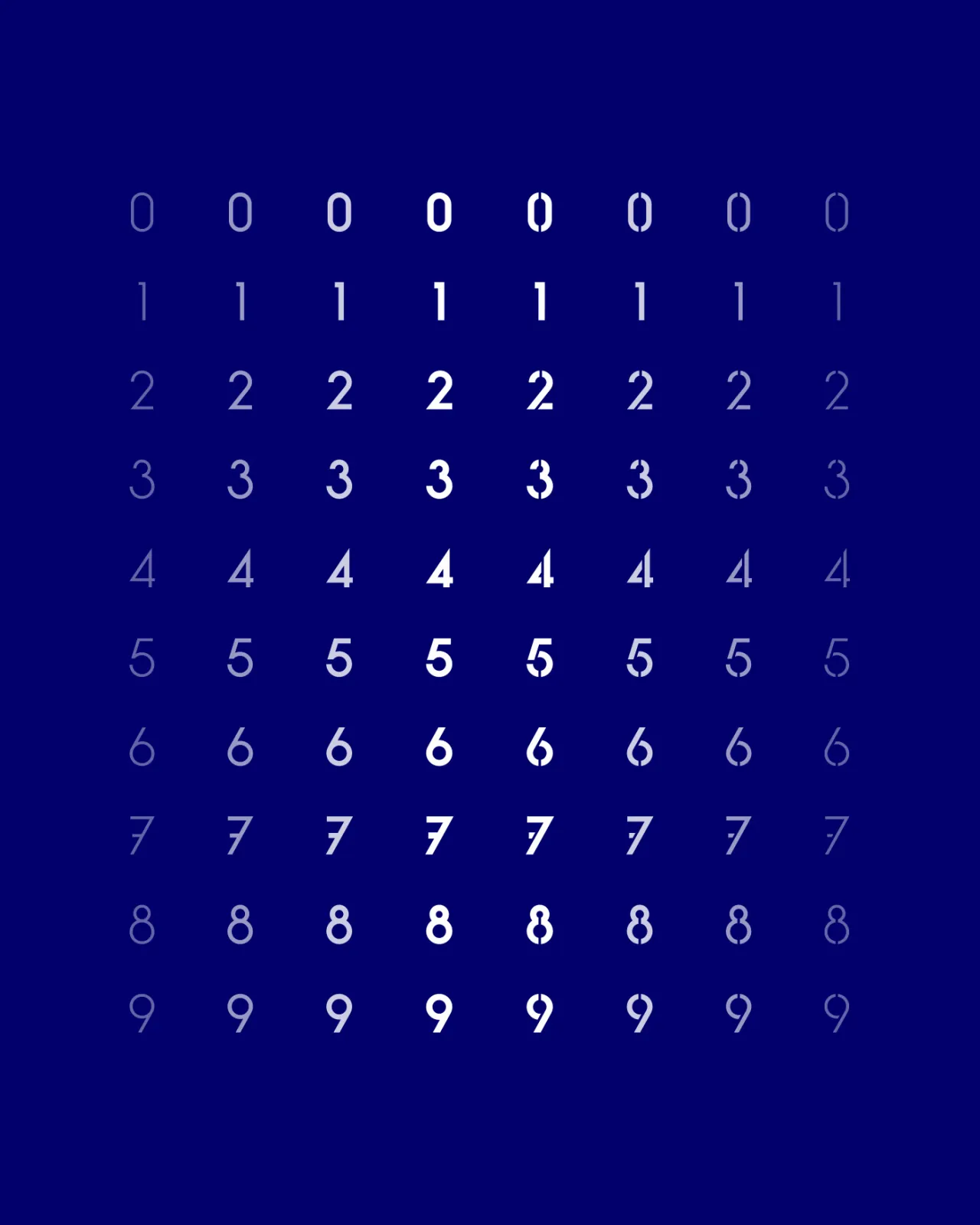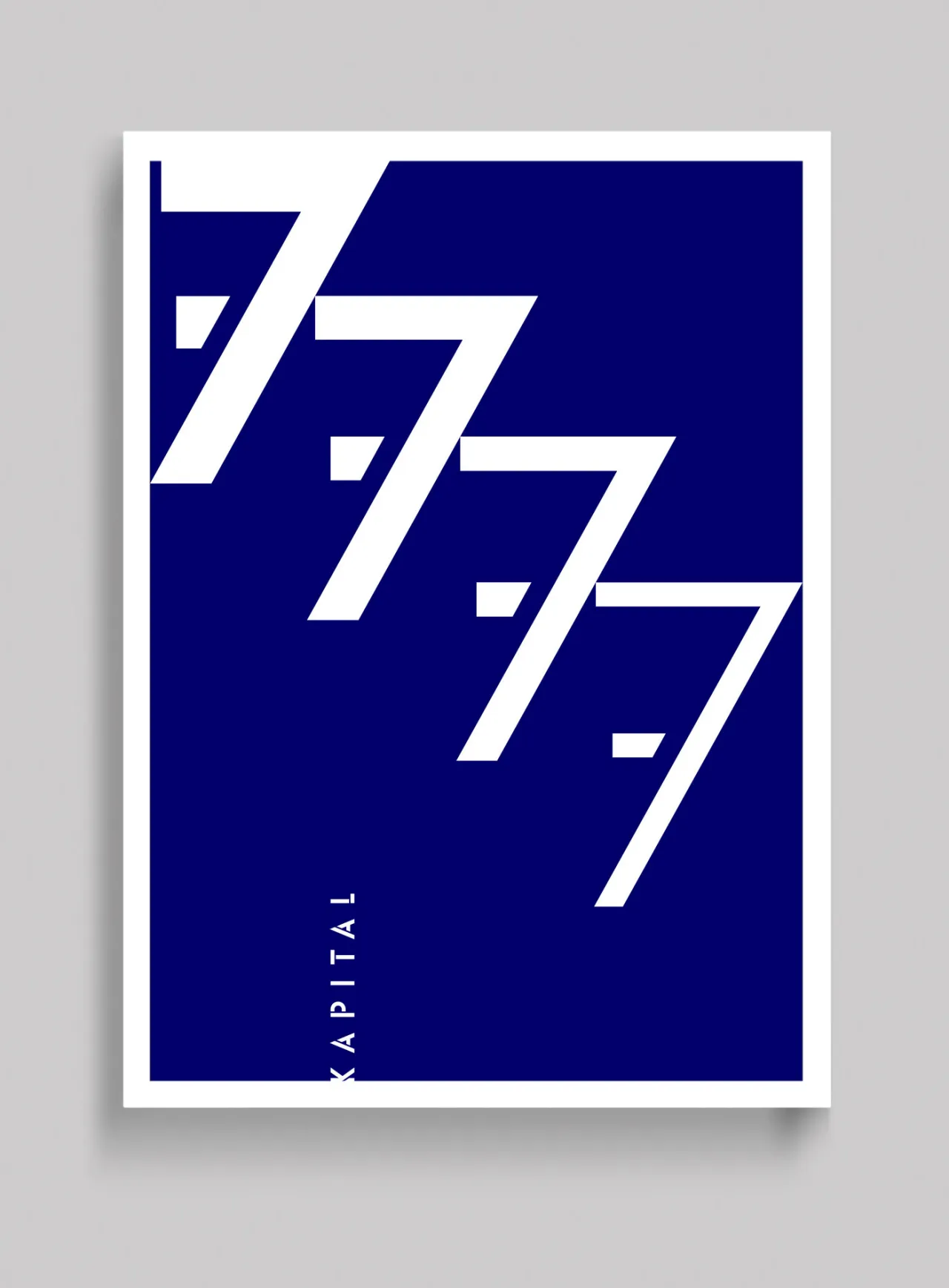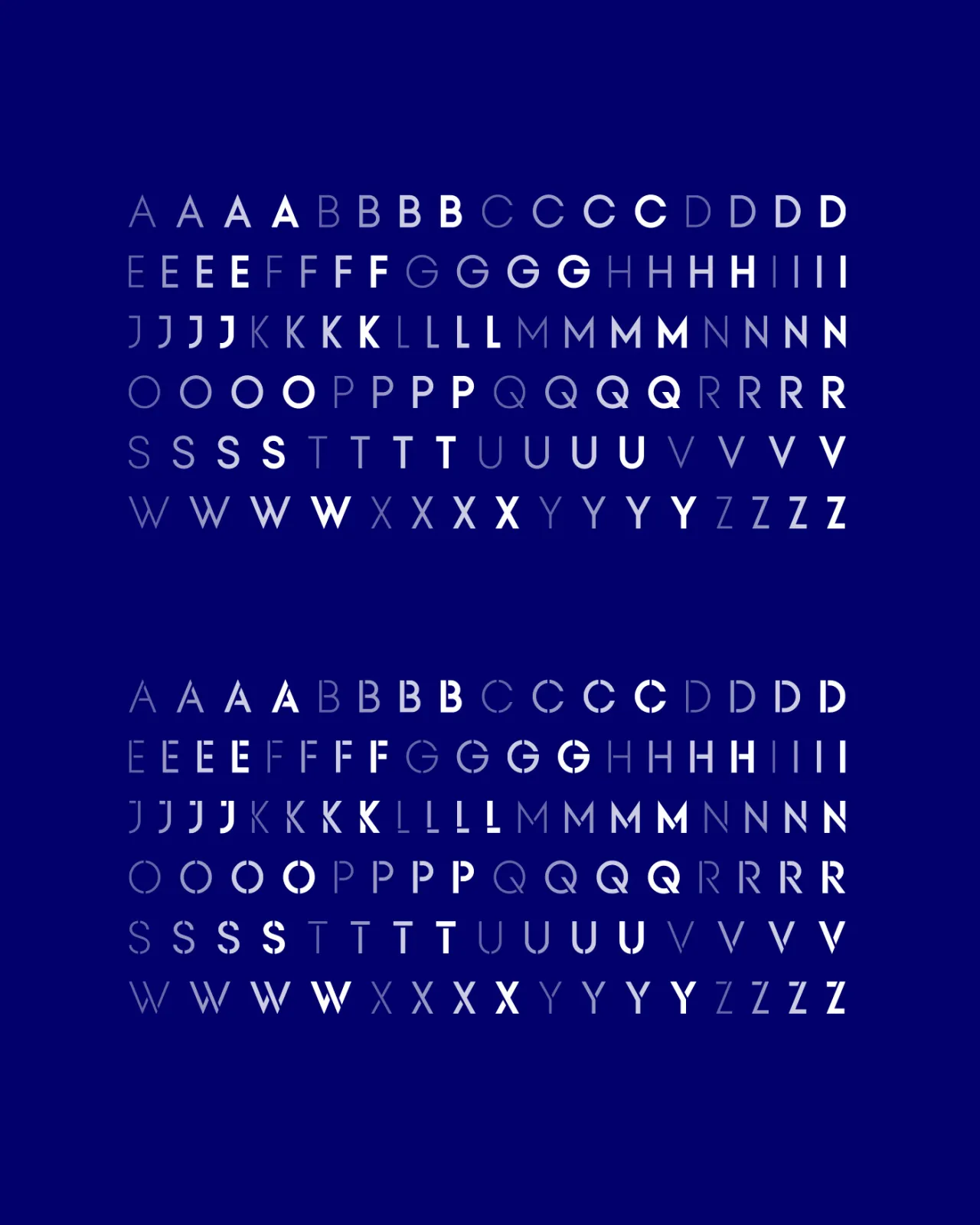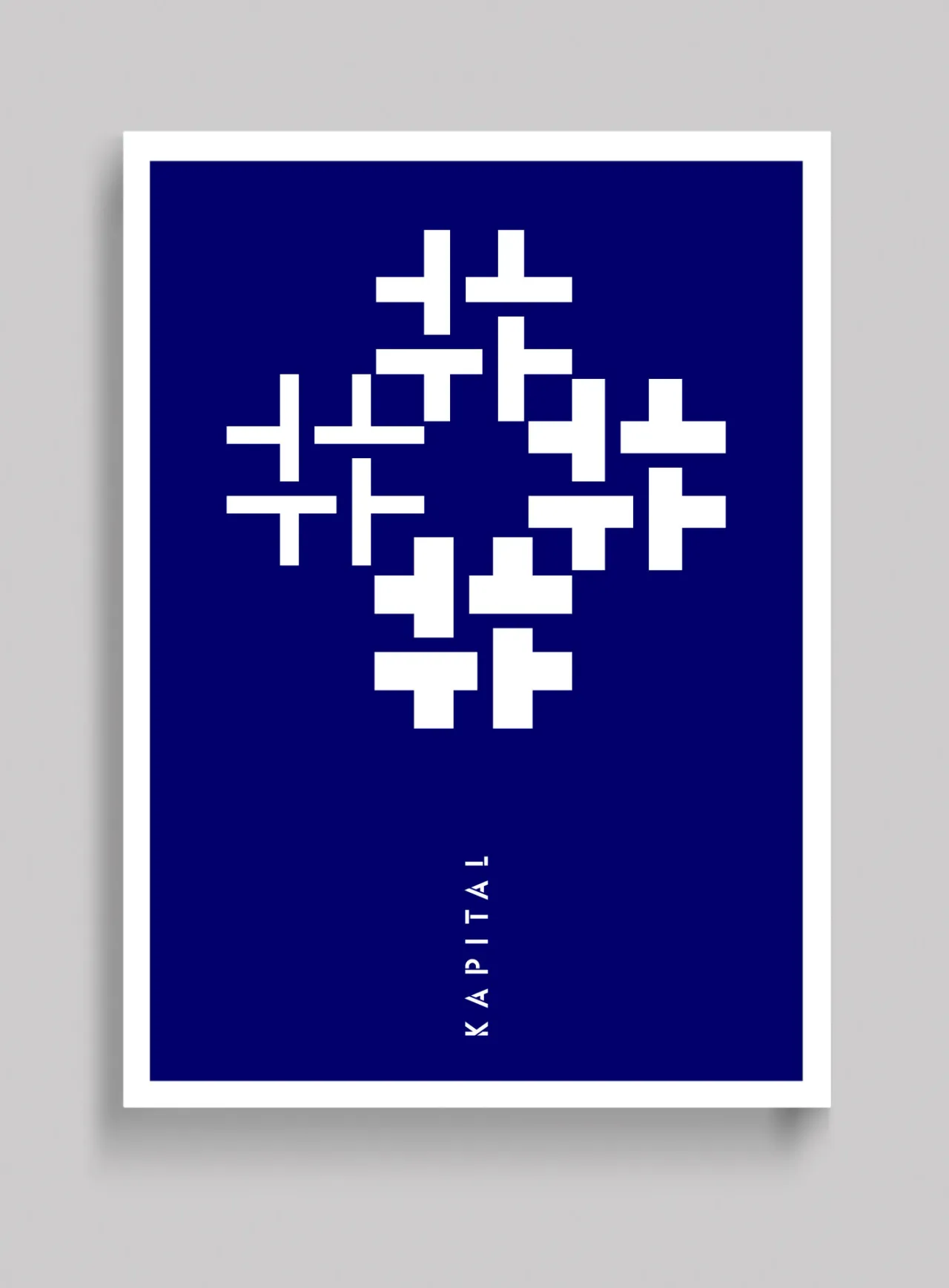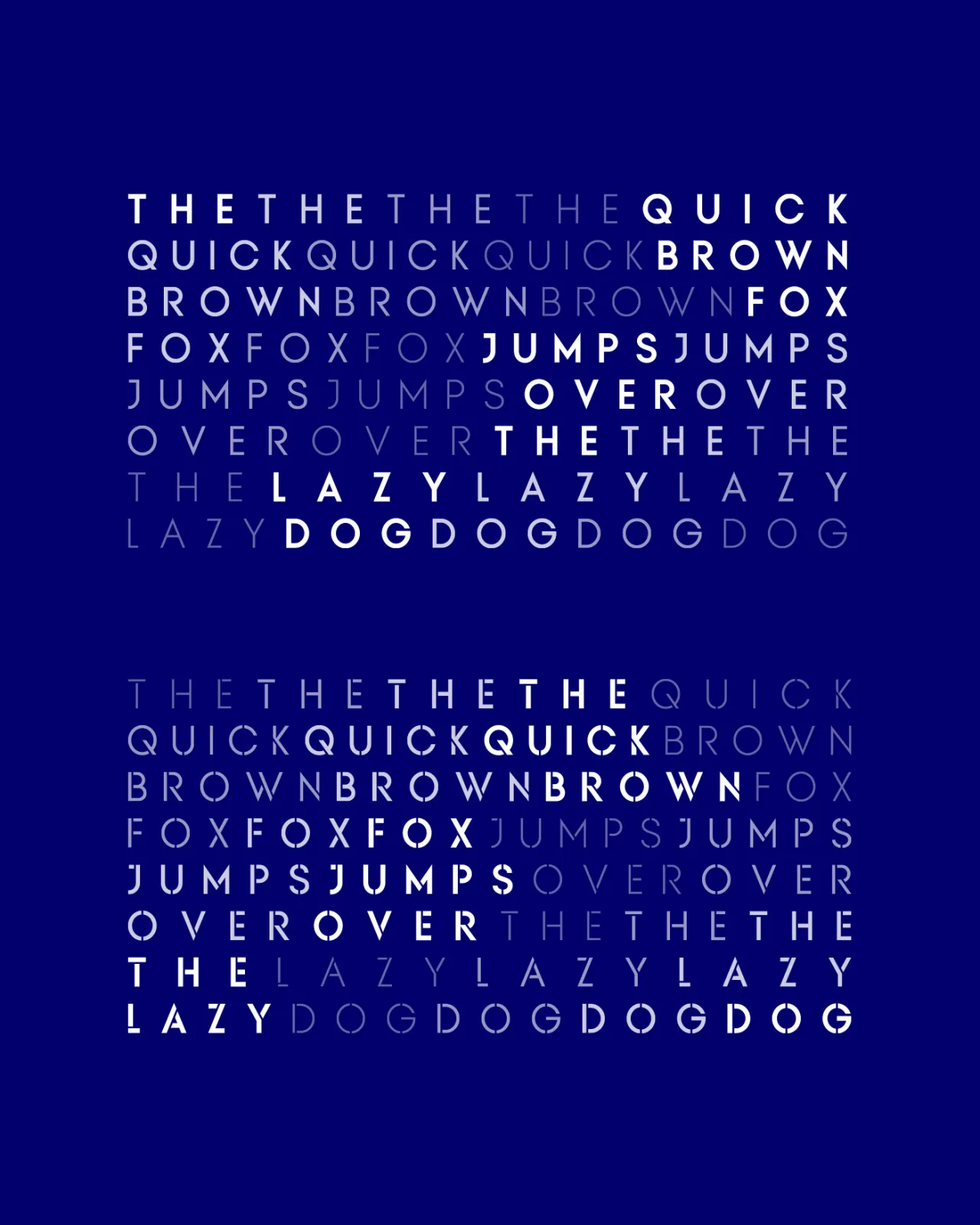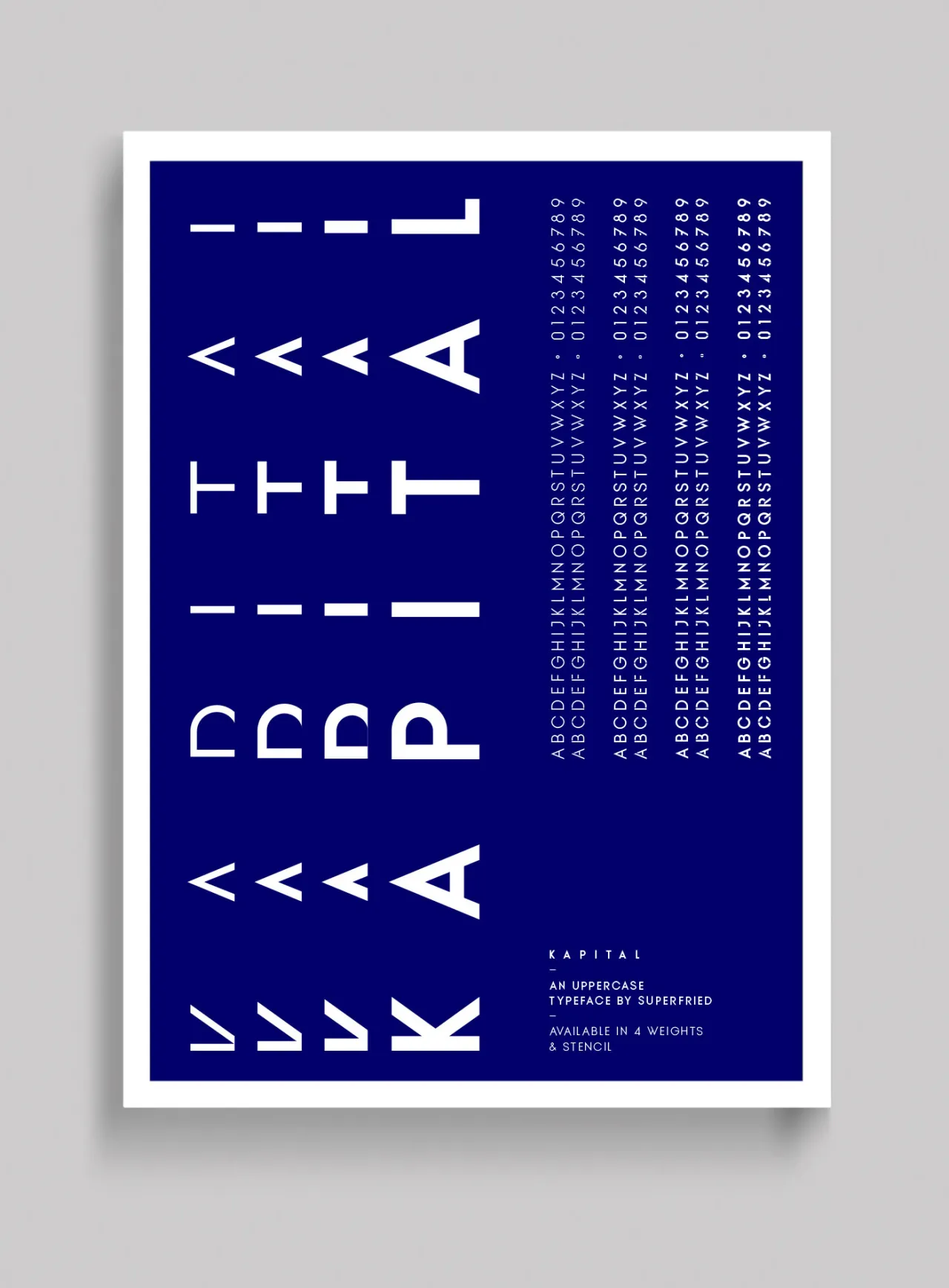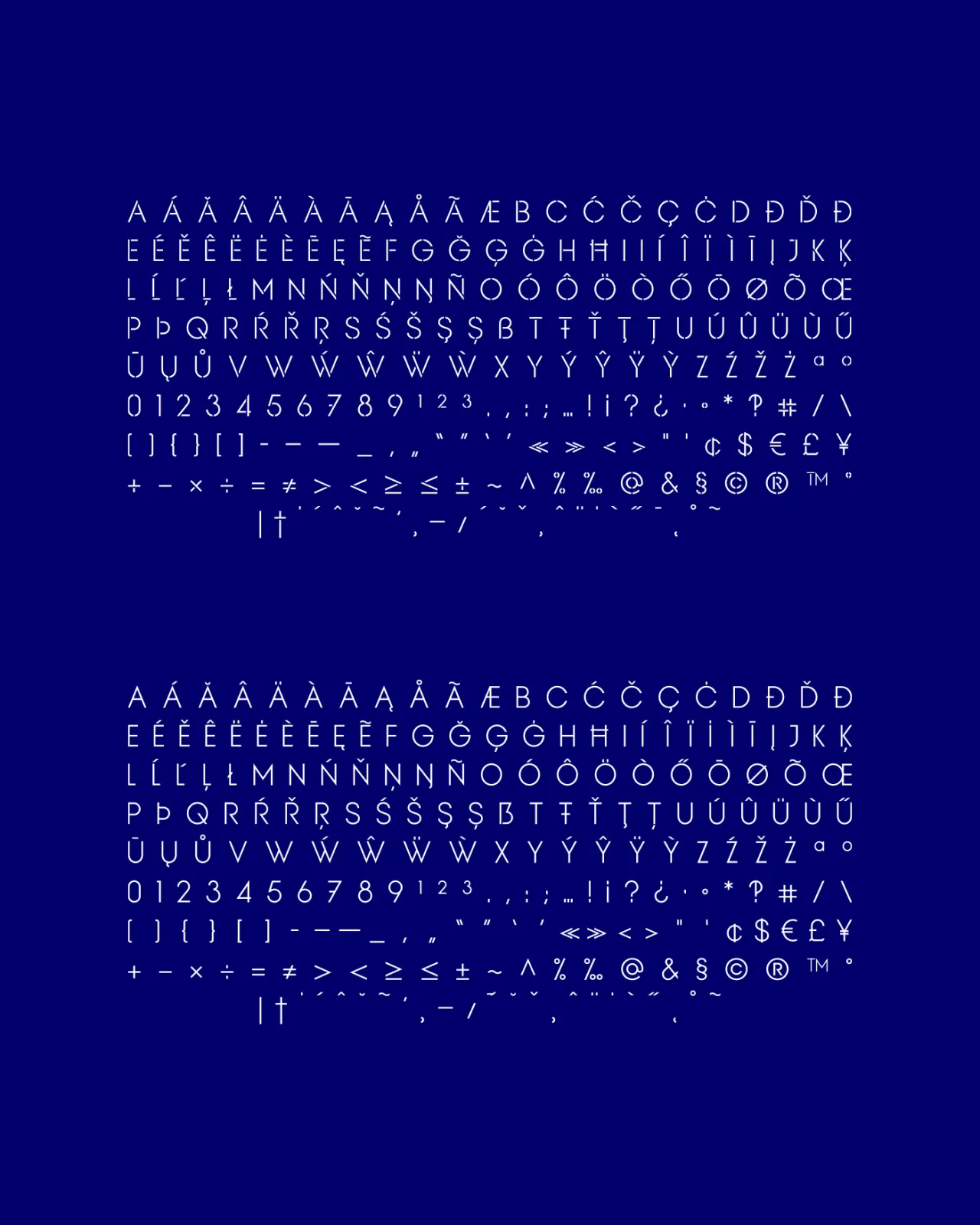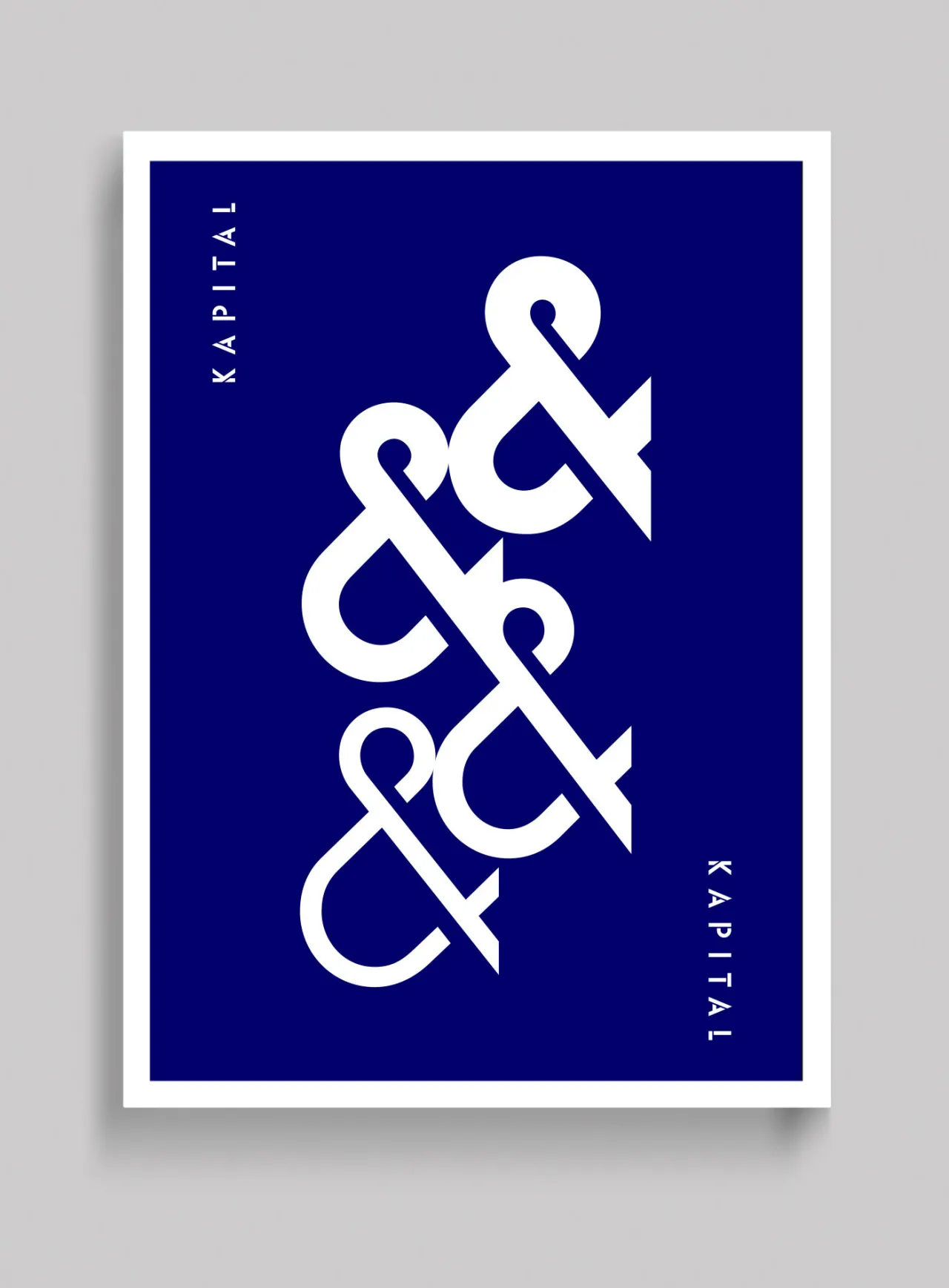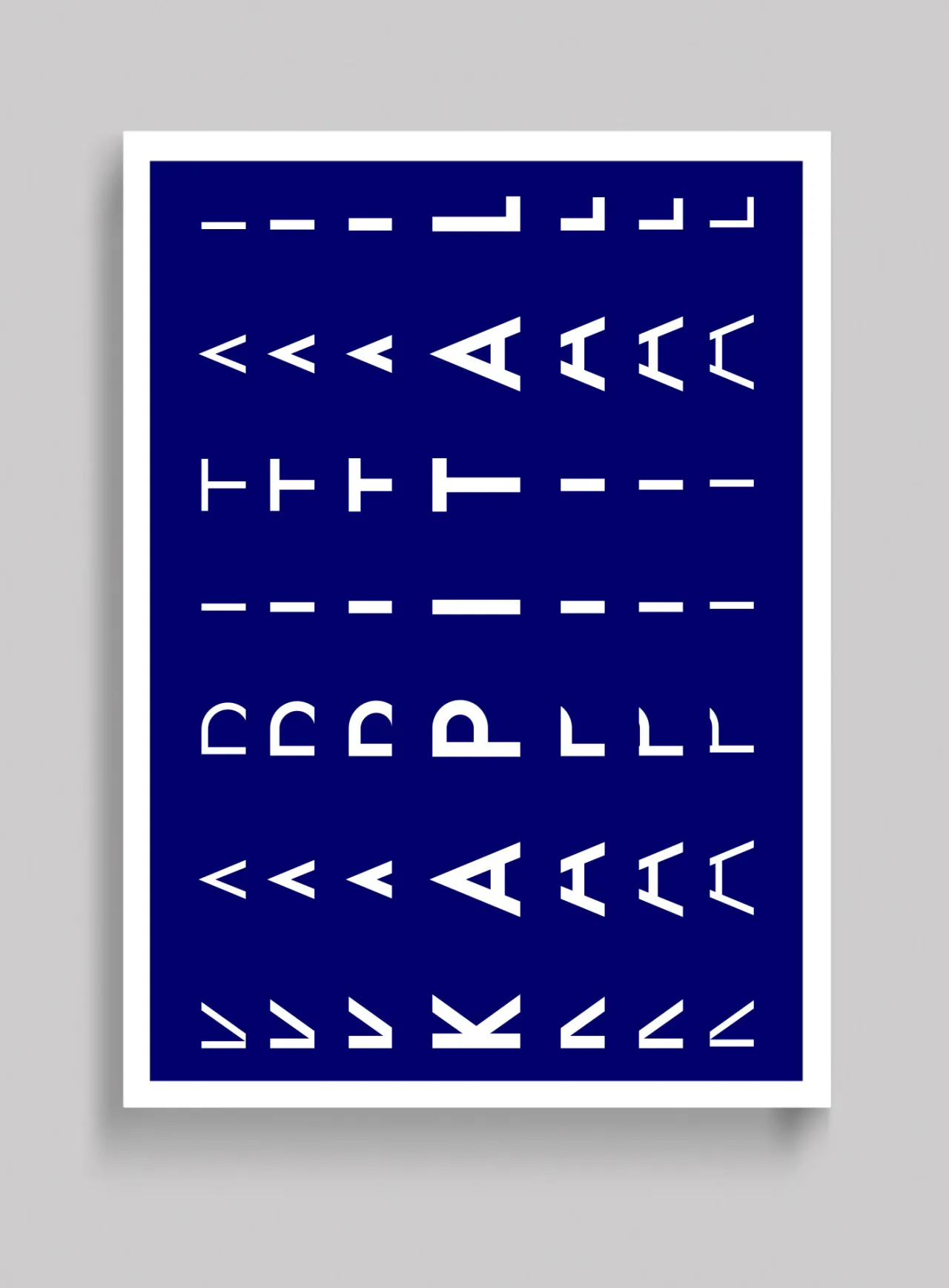
Kapital: A new elegant, geometric uppercase typeface in four weights courtesy of Superfried
Mark Richardson, aka Superfried, has created Kapital, an elegant geometric uppercase sans, available in standard and stencil style across four weights – light, regular, medium and demi – covering 346 glyphs.
Based on the capital character set from a previous release – Basik, it continues the clean, geometric aesthetics but has been refined further to create a more minimal style. "This enabled the characters to discreetly perform their role," explains Mark, "to simply convey the message of the writer without distraction."
"To achieve this," Mark adds, "special attention was applied to the form consistency of the glyphs across the weights and negative space throughout. In many typefaces, as the weight is increased the form and style can deviate significantly from the original design. With regards to negative space – although inevitable – wherever possible key letterforms were adjusted to alleviate this."